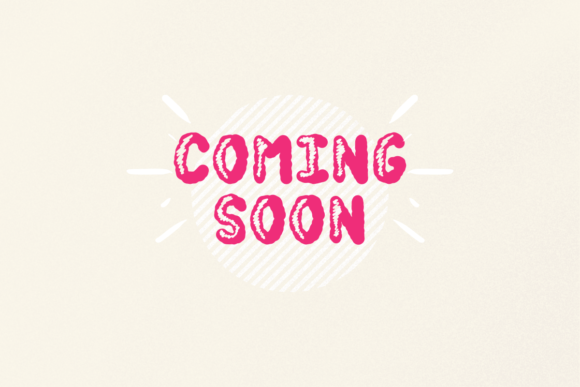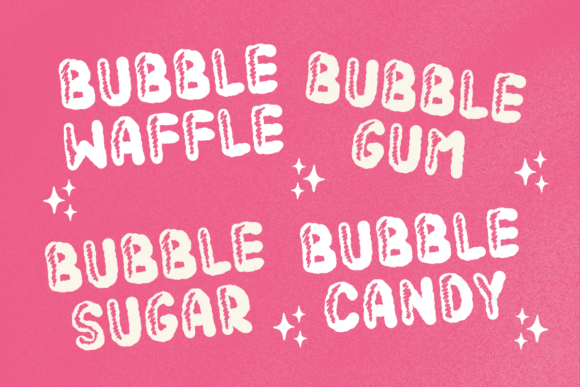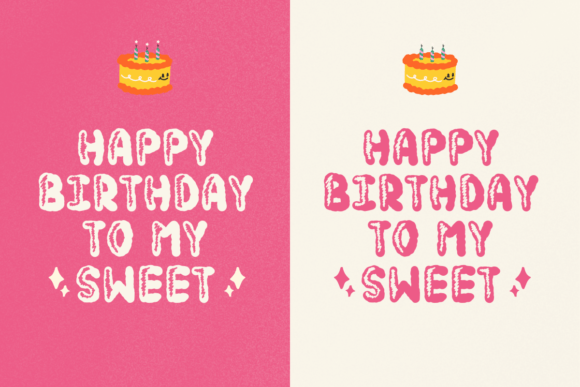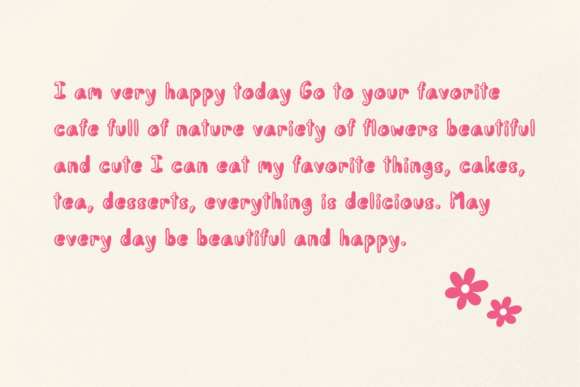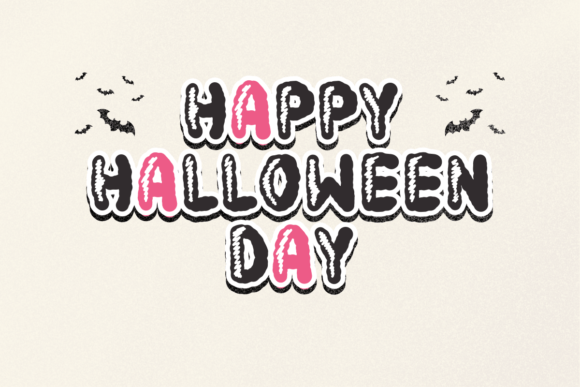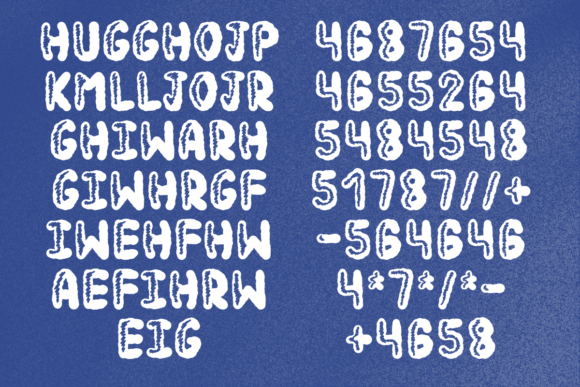
The Sweet Spot: Discovering the Charm of Bubble Sugar Font
I’ll never forget the time I was working on a whimsical craft project for a client’s birthday party. I had all the elements in place – colorful illustrations, playful graphics, and a theme that screamed fun. But something was missing. That’s when I stumbled upon the perfect font: Bubble Sugar. It was love at first sight! The cute, charming letters instantly added a playful feeling to my design, and I knew I had found the perfect fit.
What I Love About Bubble Sugar ✨
- ✅ Playful and Whimsical: Bubble Sugar’s unique design makes it perfect for projects that require a touch of fun and personality.
- ✅ Elegant yet Casual: This font strikes the perfect balance between elegance and casualness, making it suitable for a wide range of projects.
- ✅ Highly Versatile: From party invitations to social media graphics, Bubble Sugar can be used in various design projects.
While Bubble Sugar is an amazing font, it’s not without its limitations. For instance:
- ⚠️ Legibility at Small Sizes: Like many decorative fonts, Bubble Sugar may not be the best choice for body text or small font sizes.
- ⚠️ Limited Formality: Due to its playful nature, Bubble Sugar might not be the best fit for formal or professional projects.
The Story Behind Bubble Sugar: Designer Inspiration
Bubble Sugar was designed with the intention of creating a font that captures the playful, carefree spirit of childhood. The designer aimed to craft a typeface that would bring a smile to people’s faces and add a touch of whimsy to their designs. With its rounded edges and bouncy curves, Bubble Sugar embodies the joy and playfulness of childhood memories.
| Font Name | Bubble Sugar Font |
| Author | Khim08Studio |
Q: What type of projects is Bubble Sugar best suited for?
A: Bubble Sugar is perfect for projects that require a playful, whimsical touch, such as party invitations, social media graphics, and craft projects.
Q: Is Bubble Sugar suitable for body text or small font sizes?
A: While Bubble Sugar is a beautiful font, it may not be the best choice for body text or small font sizes due to its decorative nature. It’s best used for headlines, titles, or short text elements.